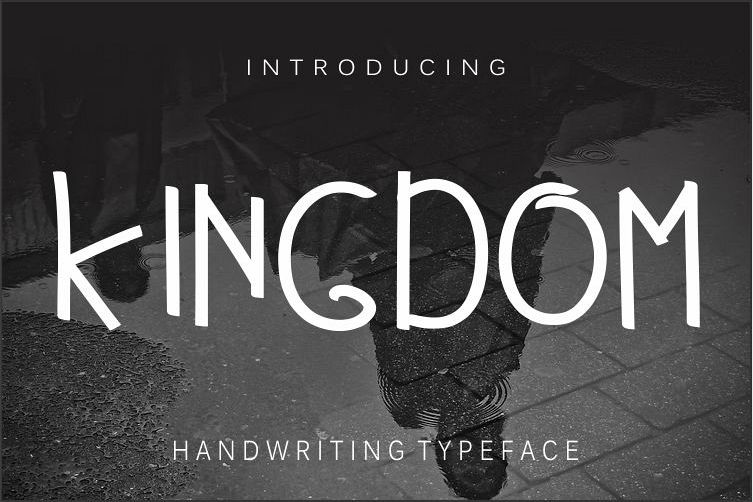
Kingdom
Kingdom font is handwritten, Kingdom font can be used in all designs, suitable for cover books, magazines, films and others ...
And also supports multiple languages